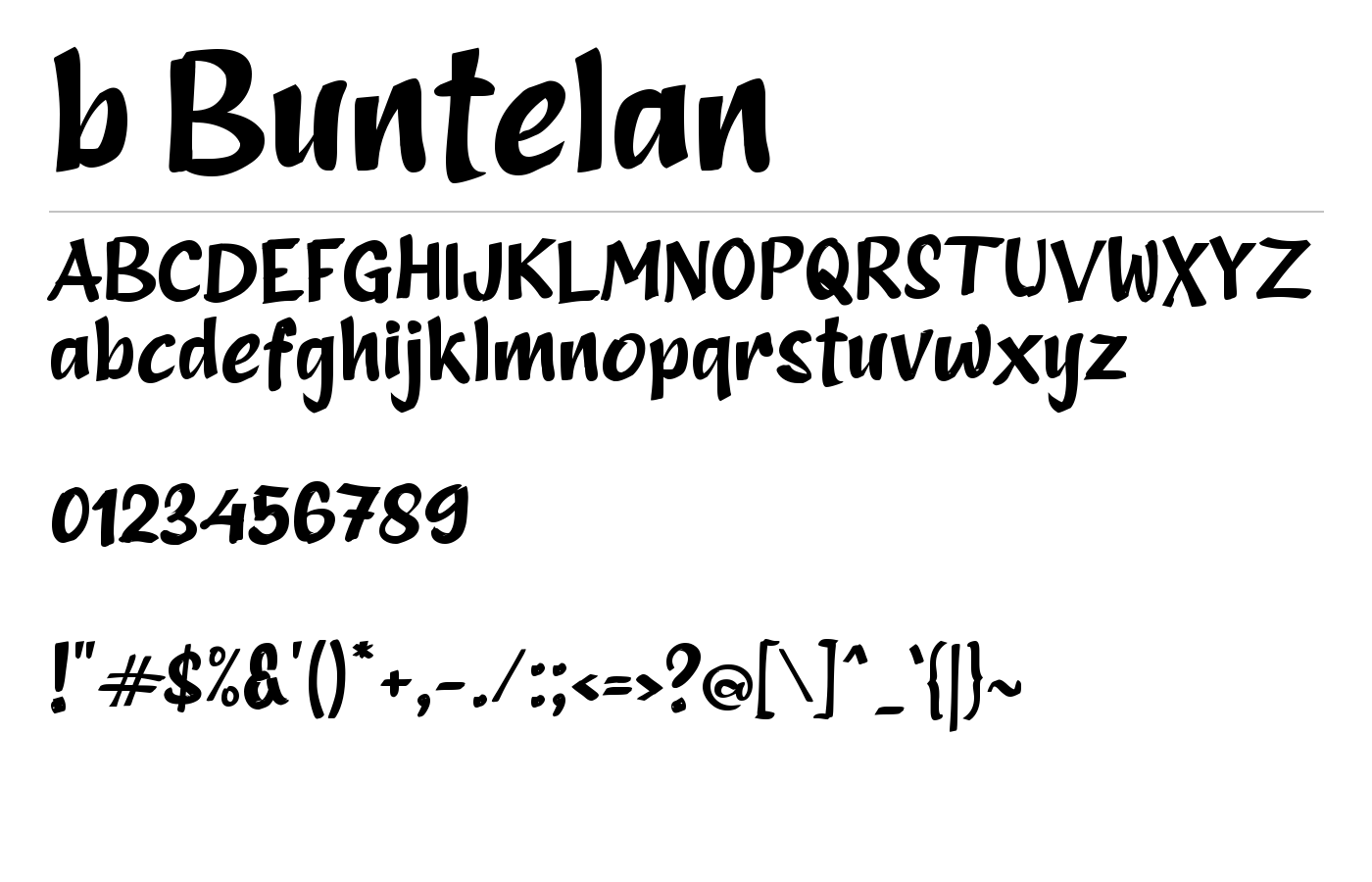
Buntelan is a playful and informal sans serif font with a hand-drawn, slightly irregular style that gives it a friendly and approachable personality. Its moderate weight and lively letterforms make it ideal for creative projects, casual branding, and fun headlines where a relaxed, human touch is needed. This font works well in designs that aim to feel warm and personal without sacrificing legibility.
b Buntelan Font
About b Buntelan Font